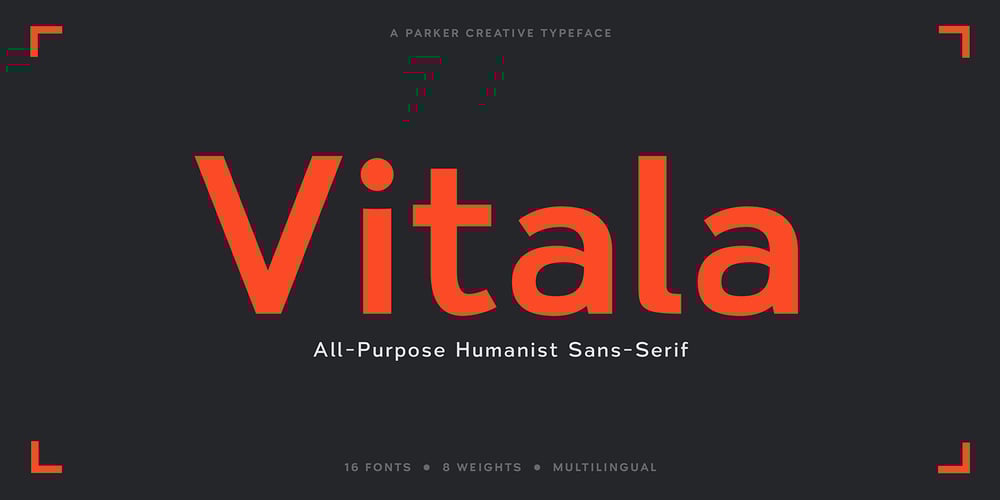
Vitala Font Family was designed by Alan Parker and published by Parker Creative. Vitala contains 16 styles and family package options. Vitala was designed from the ground up to be a useful workhorse typeface for all text long, short, tall, and small. Subtle stylistic choices like asymmetrical shapes and tapering give Vitala a more handwritten personality without sacrificing a clean-cut appearance typically found in a geometric sans-serif.The Vitala font family is made up of 16 fonts, including 8 weights and weight balanced oblique variations, which makes it an incredibly versatile typeface for all kinds of projects in print, web, video, you name it. Better yet, combine Vitala with virtually any display typeface to create a totally new look!You don’t have to sacrifice style to improve text readability or settle for widely used sans-serifs like Helvetica, Arial, Proxima Nova, or Open Sans. With Vitala, you get excellent readability with well-balanced and professionally kerned characters in a unique package.